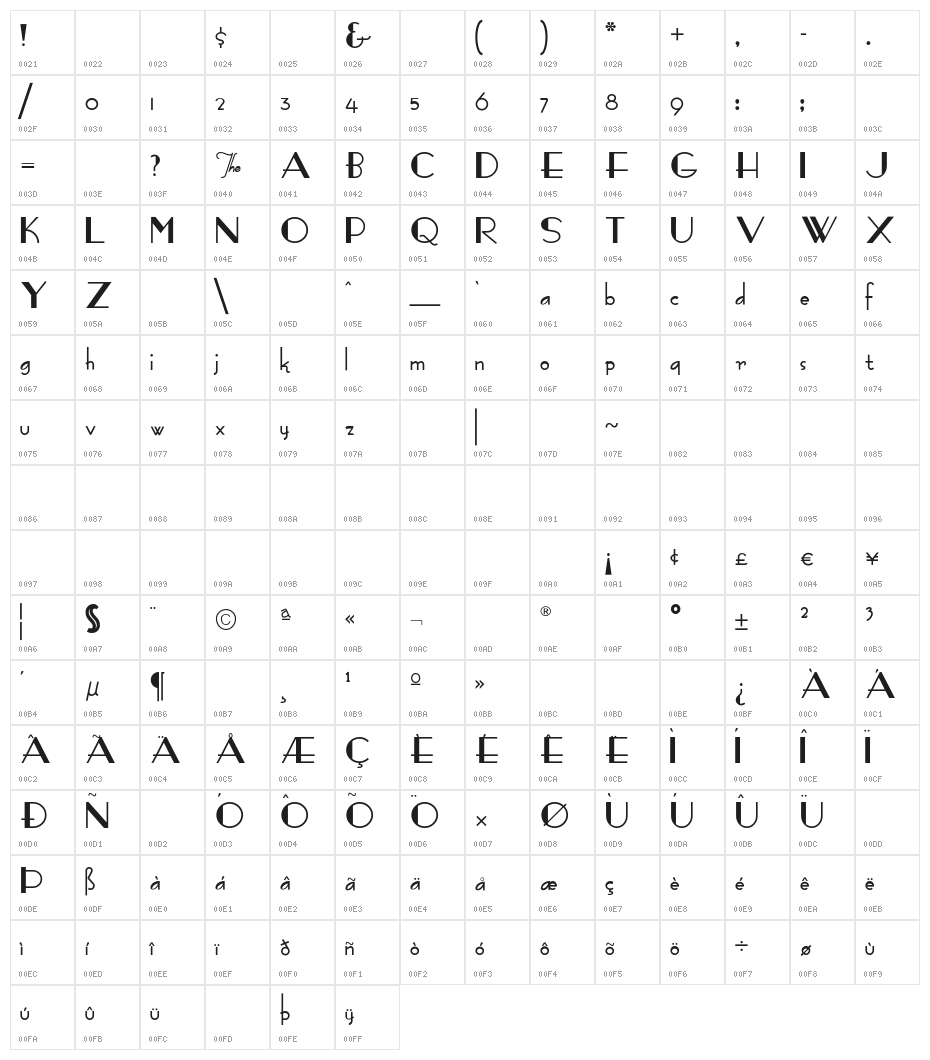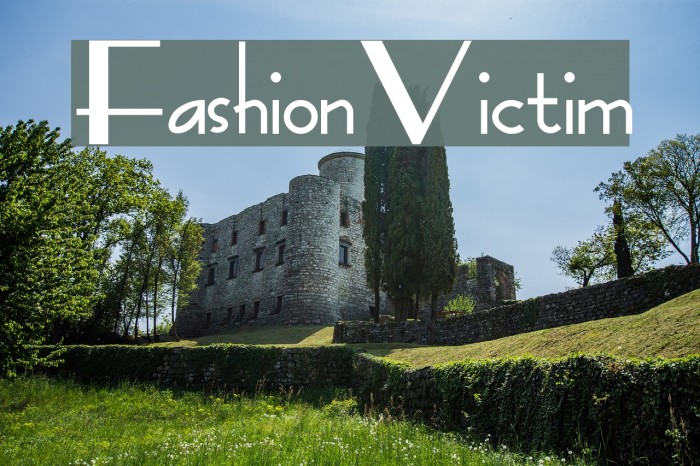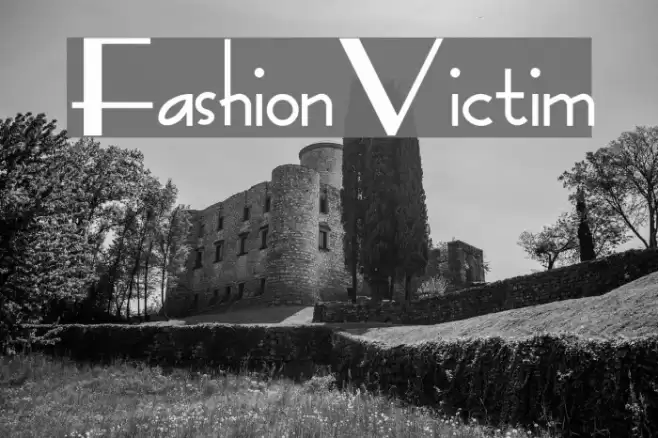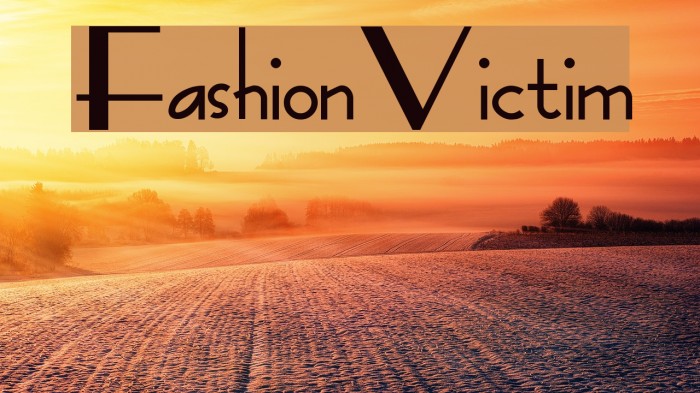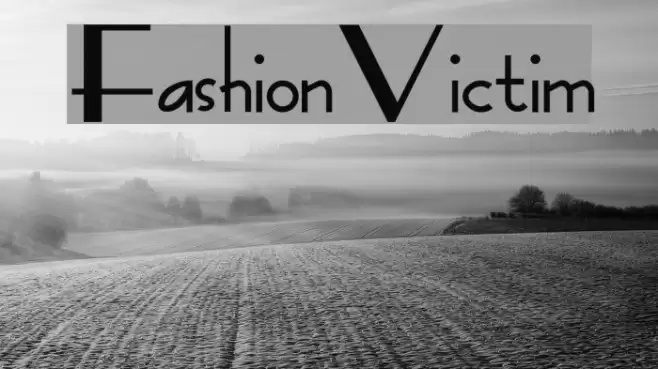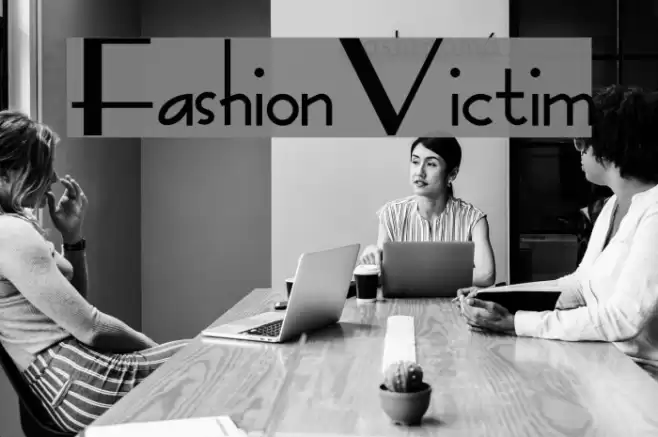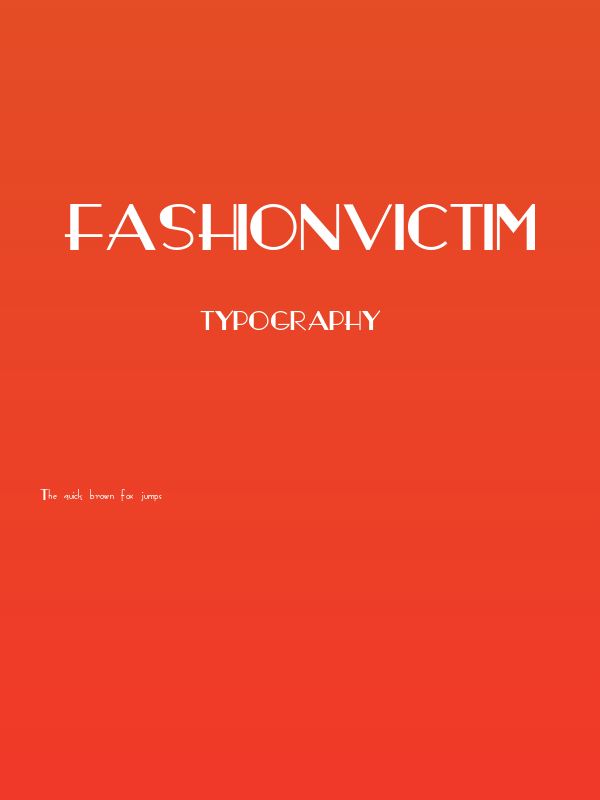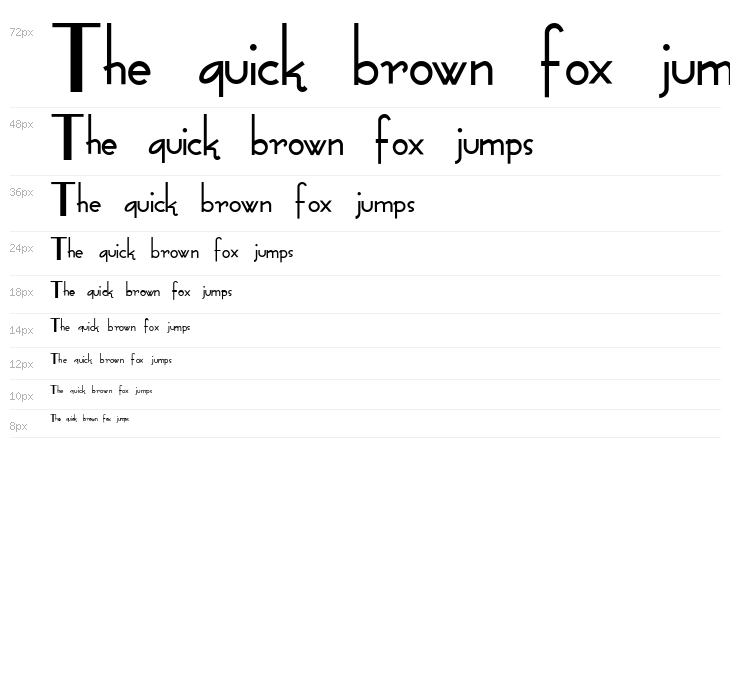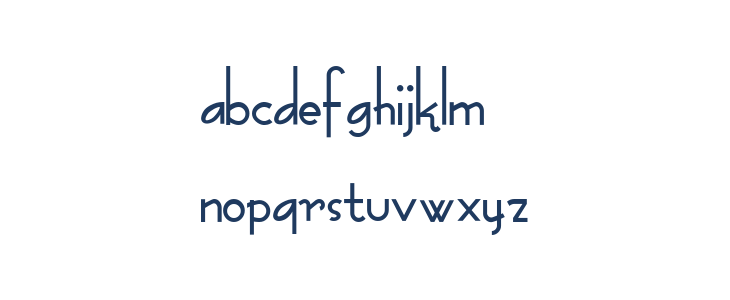
FashionVictim Font
✎ Art Nouveau
This font features a unique blend of modern and vintage elements, characterized by its geometric shapes and sharp angles. The uppercase letters are bold and striking, with distinctively wide strokes and narrow apertures, creating a sense of elegance and sophistication. The lowercase letters maintain a consistent style, with smooth curves and a slightly condensed form, adding a touch of playfulness. The numerals are clean and straightforward, complementing the overall aesthetic. Special characters are designed with flair, enhancing the font's decorative appeal. This font's versatility makes it suitable for various design projects, from fashion branding to editorial layouts.